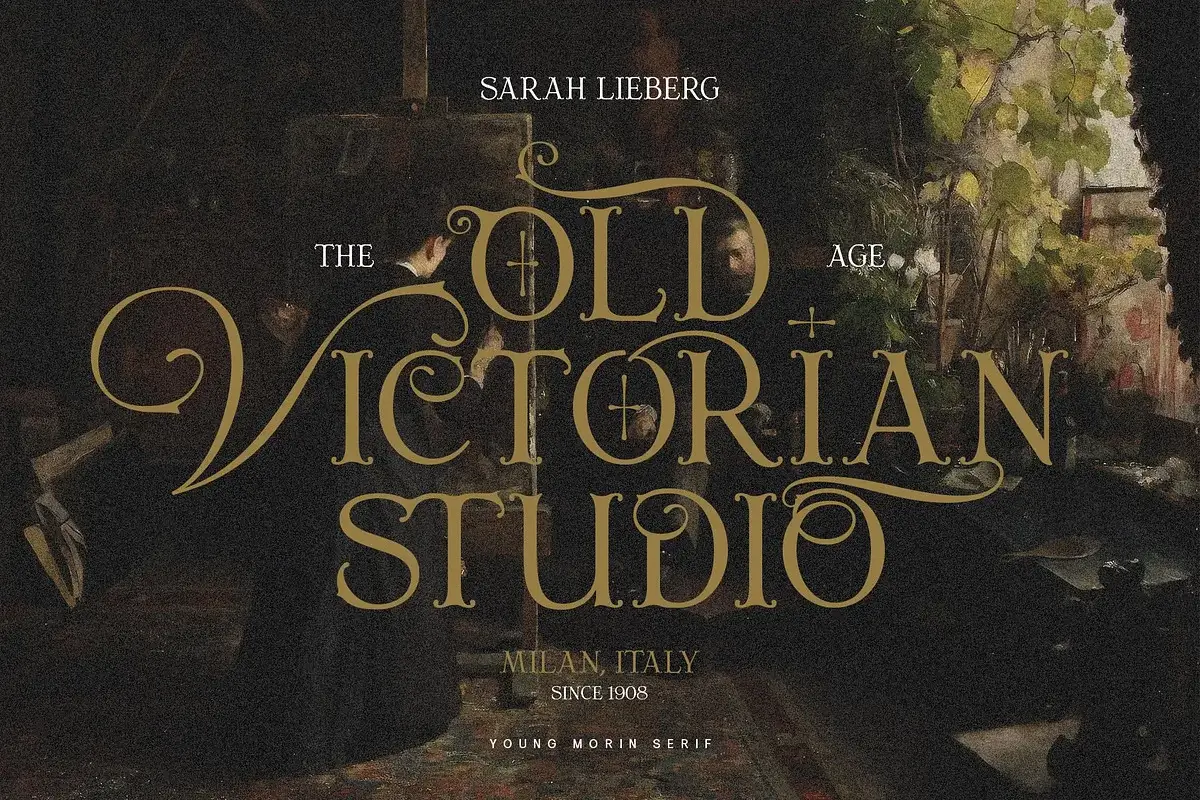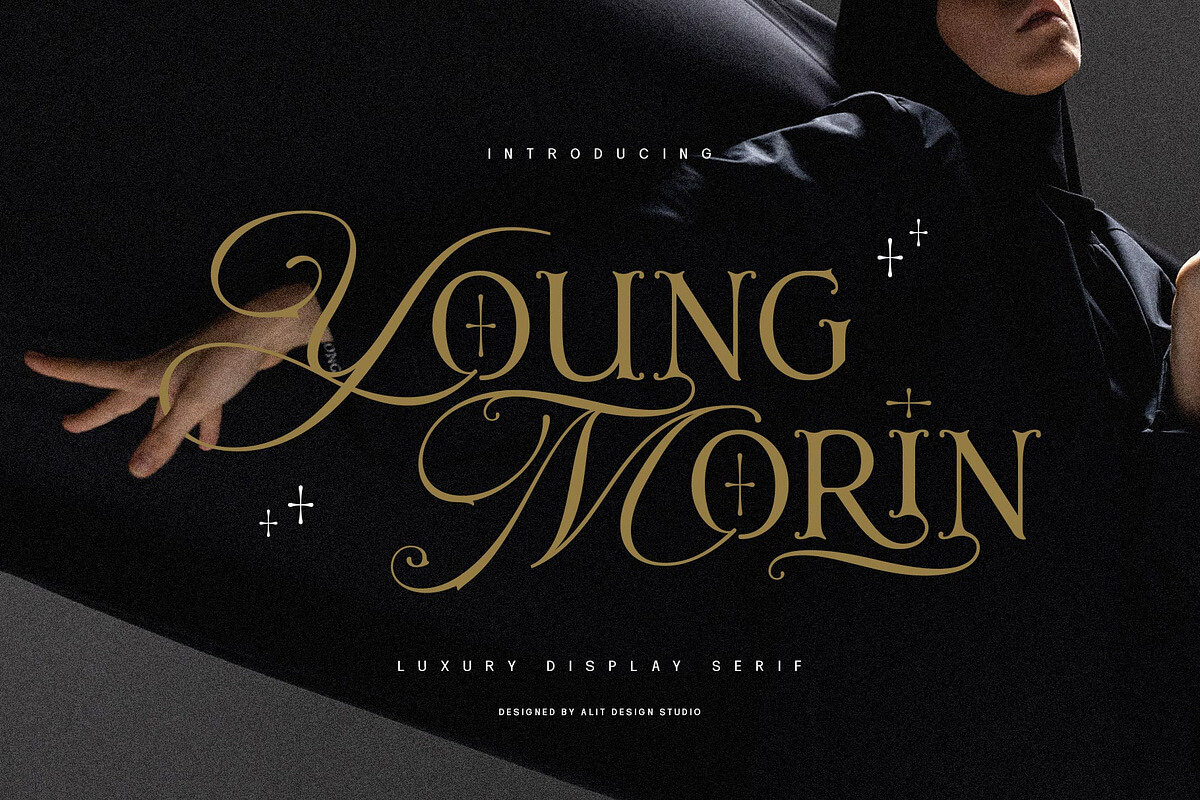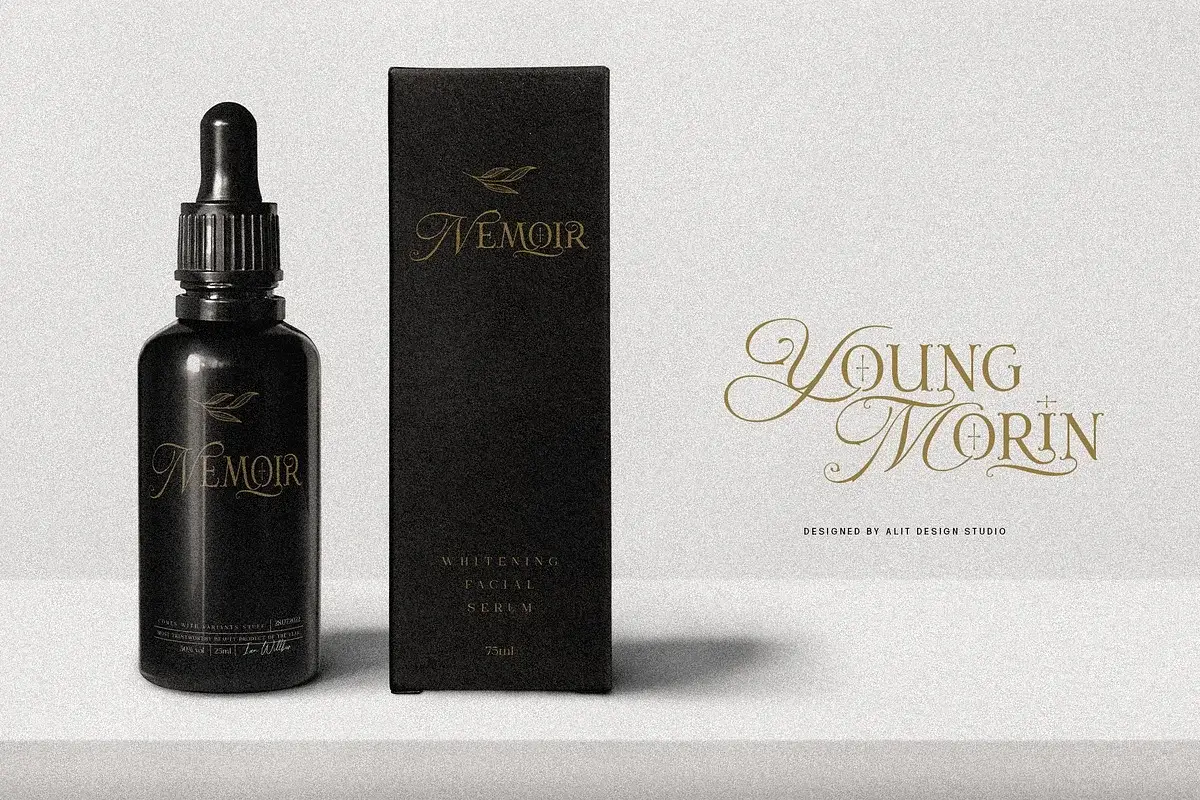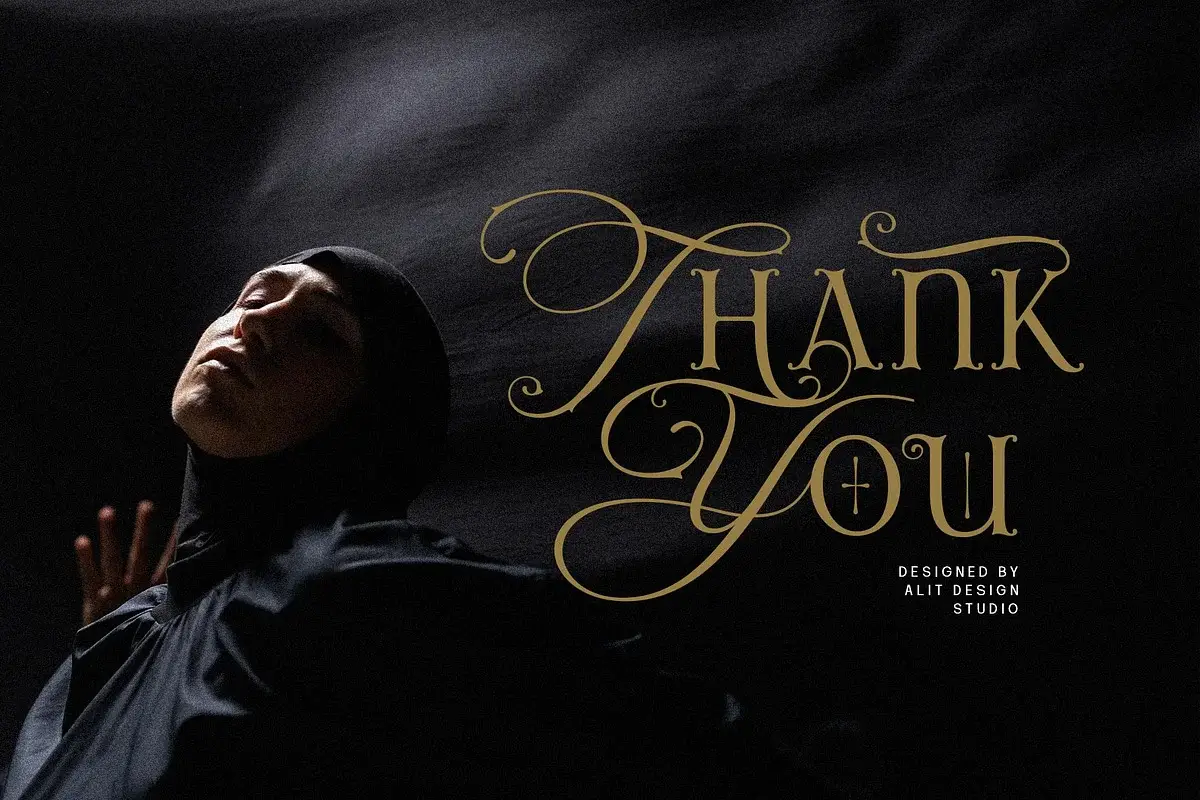
Young Morin Font – Serif Typeface
Young Morin Font is a modern and elegant font designed by combining elegant script fonts with a classic serif font style for your following design project.
This font is perfect for creating titles, game, book headers, product packaging, labels, photography, watermarks, special events, comics, pop art, logotypes, t-shirt designs and many more.
Font Case:Uppercase, Uppercase(alt), Number, Punctuation and Symbols